3 Google Fonts Similar to Benton Sans
Benton Sans is a sans-serif font designed by Tobias Frere-jones in 1995. It design was inspired from News Gothic. It features nice curves that give the font a friendly yet sophisticated look.
For these reasons, it is a very popular font.
So lets cover a few options that would make great alternatives if you are on a budget.
What Google Fonts are Similar to Benton Sans?
The best Google Font alternatives for Benton Sans are:
- News Cycle
- Libre Franklin
- Source Sans Pro
These were the closest fonts that I could find.
So lets dive into each one.
News Cycle
News Cycle is going to be the best option for Benton Sans. The lowercase and uppercase letters are all pretty much all the same.
The main difference is in the height of the letters and the weight. Benton Sans is a little shorter and thicker.
Compare for yourself below.
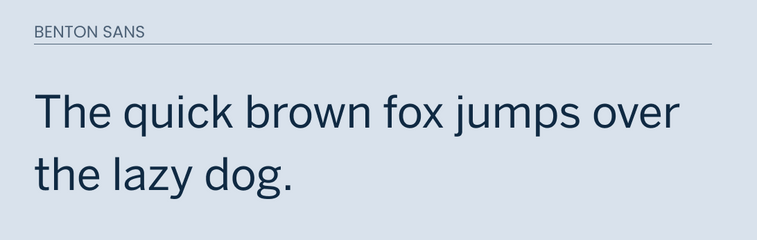
Libre Franklin
Libre Franklin also does a great job at matching all the letters in both lower and uppercase.
Libre Franklin does the best job at matching Benton Sans's lowercase "g". Which is pretty unique.
The other difference is the uppercase "Q". Although subtle, Benton Sans places their line more towards the center of the "Q" while in Libre Franklin pushes it more towards to the side.
Source Sans Pro
Out of all three of the fonts mentioned above, Source Sans Pro is the least lookalike, but still a great option when compared to other fonts. It does a great job matching 95% of all the letters in Benton Sans.
The biggest difference is going to be in the lowercase "l" and uppercase "G".
Take a look below.
Final Thoughts
News Cycle is going to be a great alternative for Benton Sans. If News Cycle doesn't work, then Libre Franklin or Source Sans Pro would be great lookalikes. Overall, nothing is going to actually replace the font itself. However, if you are on a budget either one of the fonts above will be a good fit.